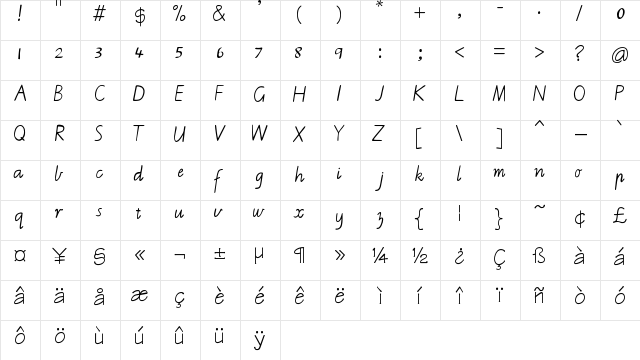
vicmodcu Regular
Design Context for vicmodcu Typeface
vicmodcu is a composed and adaptable typeface that performs quietly and consistently across a wide range of design contexts.